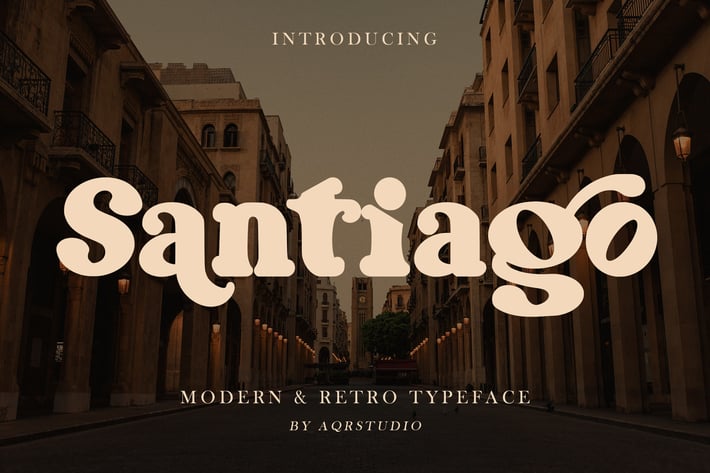
Santiago - Retro Typeface Font
Santiago - Retro Typeface Font contains a lowercase, uppercase, symbol, and also supports multi-language. There’s a lot of ligature in this font. Santiago - Retro Typeface Font also comes with ligatures, stylistic alternates and many more.
this font suitable for fashion, branding, catalog and other design that you want.